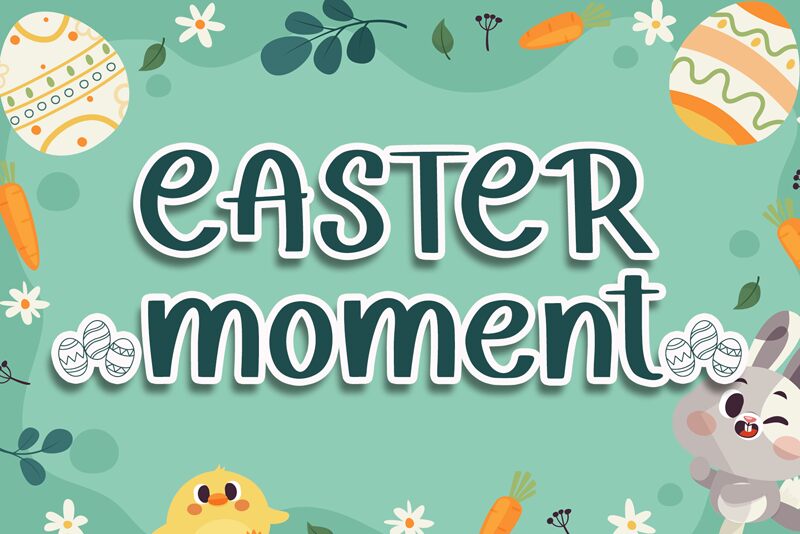
Easter Moment font is a fun holiday font by AEN Creative Studio combining an informal look with a liveliness of a cheerful Easter moment. The approachable font consists of outlined whimsical letters that create groovy, decorative designs. Modern and energetic, this resource is available for free font on personal projects as TTF files; find ways to upgrade its license for a wider range of applications.
Finish off Easter card designs and invitations, decorate gift tags and stickers for Easter egg hunts, and prepare social media ads using the informal font. Pair it with other fonts for logos and branding of informal businesses or add a playful twist to books and album covers with manageable letters. Take on coloring projects using this font and use its elements to build Easter-themed magazines, greeting cards, and even websites.